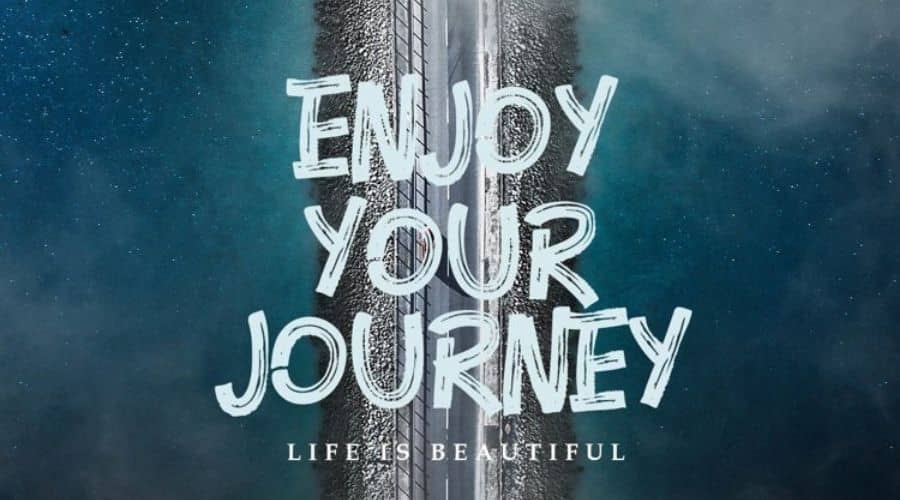
Blinkstones Font
I’m delighted to offer you with a brand new script font. The Blink Stones font is now available. Blinkstones is a high-quality Script font with a variety of styles. Lettersiro Studio produced and published the Font, which is free to download and use for personal purposes. On January 13, 2019, the Font was made public. All uppercase and lowercase letters and a few special characters are included in the free version. This Font belongs to the BlinkStones family. This typeface belongs to the Regular sub-family. Lettersiro 2018 is the designer of this typeface. BlinkStones: Version 1.00 is the Font’s unique subfamily identity. BlinkStones is the full name of this Font.
BlinkStones is the Postscript font name for this Font. This typeface belongs to the Scripts family. The lovely variety Script font is available in TTF and OTF font formats. This typeface has a Medium weight (normal). This Font has a Medium width (normal). Bold is the Mac style of this typeface. This Font’s pattern nature is Regular. This typeface is suitable for a wide range of professional and aesthetic projects. This font is the perfect choice for you if you want a natural touch.
This Font is perfect for branding and embellishing any project. You can also make a stunning frame or a logo for your home. Alternatively, you can use it for your small business, book covers, stationery, marketing, blogs, magazines, and other purposes. Blinkstones Font is great for logos, branding, invitations, stationery, wedding designs, fonts, business cards, covers, t-shirts, social media posts, and more. It will also be utilized to generate a stunning image and text in a variety of colors and styles.
NameBlinkstones Font
StyleScript
DesignerLettersiro Studio